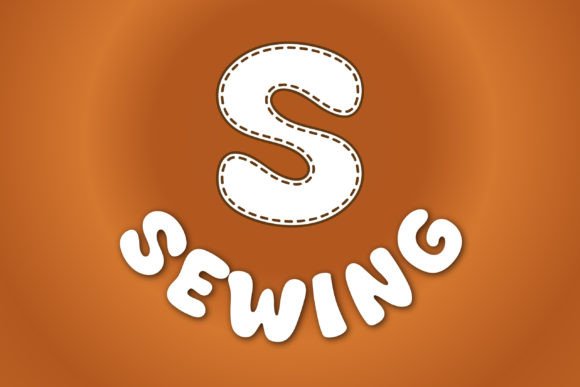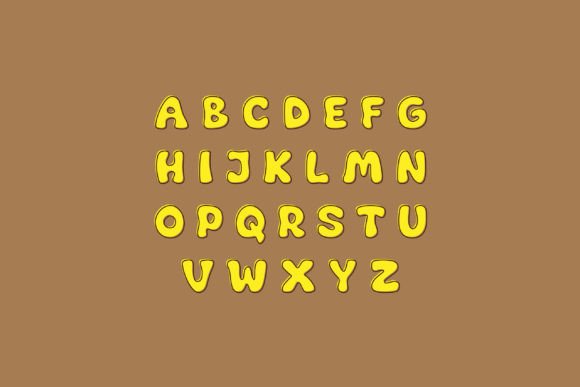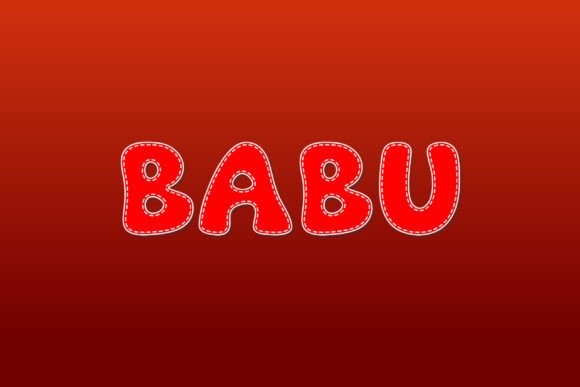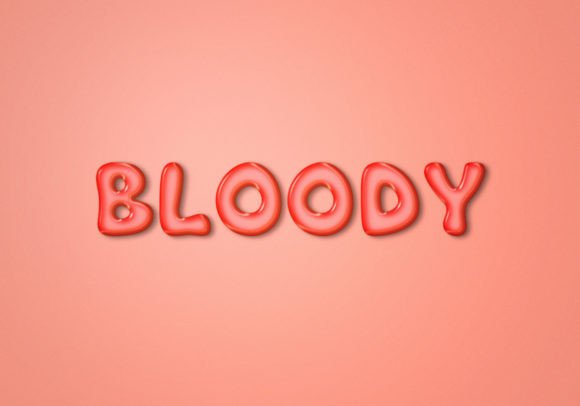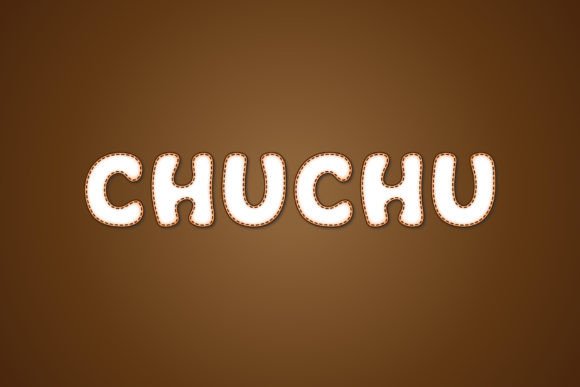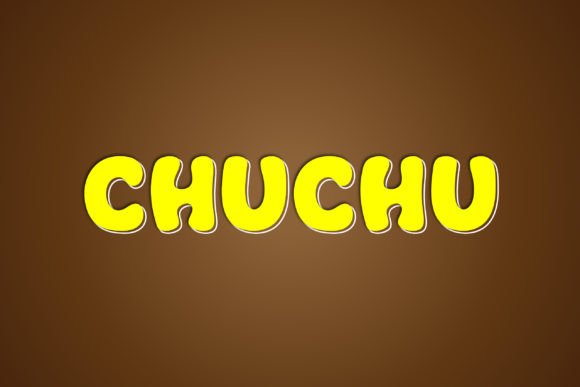
Introducing Chuchu Font: A Whimsical Addition to Your Design Arsenal
In the realm of typography, fonts play a pivotal role in conveying the tone and personality of a design. For those seeking a unique blend of gothic craftsmanship and playful cartoon essence, the Chuchu Font stands out as an exceptional choice. This decorative font is meticulously crafted to infuse a touch of fun and artistry into various design projects, ranging from animated titles and dynamic movie names to creative T-shirt graphics.
The Essence of Chuchu Font
Chuchu Font is a gothic-crafted, decorative typeface that beautifully marries the elegance of gothic typography with the whimsy of cartoon-inspired design. This fusion results in a font that is not only visually striking but also versatile, making it suitable for a wide array of applications. Whether you’re working on a project that requires a dash of playfulness or a sophisticated, artistic flair, Chuchu Font proves to be an invaluable asset.
Key Features of Chuchu Font
- Whimsical Glyphs and Characters: Chuchu Font boasts an impressive collection of 96 whimsical glyphs and 95 lively characters. This extensive range of glyphs and characters allows designers to experiment with various combinations, ensuring that their designs are always unique and captivating.
- Cartoonish Charm: The font’s cartoonish charm is one of its most defining features. It adds a touch of fun and playfulness to any design, making it particularly well-suited for projects aimed at a younger audience or those that require a lighthearted approach.
- Versatility: Chuchu Font’s versatility is another key advantage. It can be used in a variety of design projects, including animated titles, movie names, T-shirt graphics, and more. Its ability to adapt to different design needs makes it a valuable addition to any designer’s toolkit.
Applications of Chuchu Font
The applications of Chuchu Font are vast and varied. Here are a few examples of how this versatile font can be used:
- Animated Titles and Movie Names: The playful, dynamic nature of Chuchu Font makes it an excellent choice for animated titles and movie names. It can help set the tone for a film or animation, drawing viewers in with its whimsical charm.
- T-Shirt Graphics: For crafters and designers looking to create unique T-shirt designs, Chuchu Font offers a wealth of creative possibilities. Its cartoonish appeal can be used to create fun, eye-catching designs that are sure to stand out.
- Digital and Print Media: Beyond its use in film and apparel, Chuchu Font can also be used in various digital and print media projects. Its decorative nature makes it suitable for posters, flyers, social media graphics, and more.
Tips for Using Chuchu Font Effectively
To make the most of Chuchu Font, consider the following tips:
- Experiment with Glyphs and Characters: Don’t hesitate to explore the full range of glyphs and characters available in Chuchu Font. Experimenting with different combinations can help you create truly unique designs.
- Pair with Complementary Fonts: When using Chuchu Font in a project, consider pairing it with complementary fonts to enhance its visual impact. A well-chosen font pairing can help balance the playful nature of Chuchu Font with more straightforward typography.
- Consider Your Audience: Given the playful nature of Chuchu Font, it’s essential to consider your target audience. This font is particularly well-suited for projects aimed at a younger audience or those that require a lighthearted approach.
| Font Name | Chuchu Font |
| Author | Abuhasnat |
Chuchu Font is a unique and versatile decorative font that brings a blend of gothic craftsmanship and playful cartoon essence to the world of typography. With its extensive collection of whimsical glyphs and characters, cartoonish charm, and wide range of applications, it’s an excellent choice for designers and crafters looking to add a touch of fun and artistry to their projects. Whether you’re working on animated titles, dynamic movie names, or creative T-shirt graphics, Chuchu Font is sure to prove itself as a valuable asset in your design arsenal.